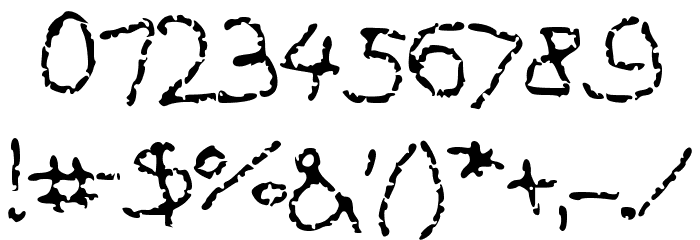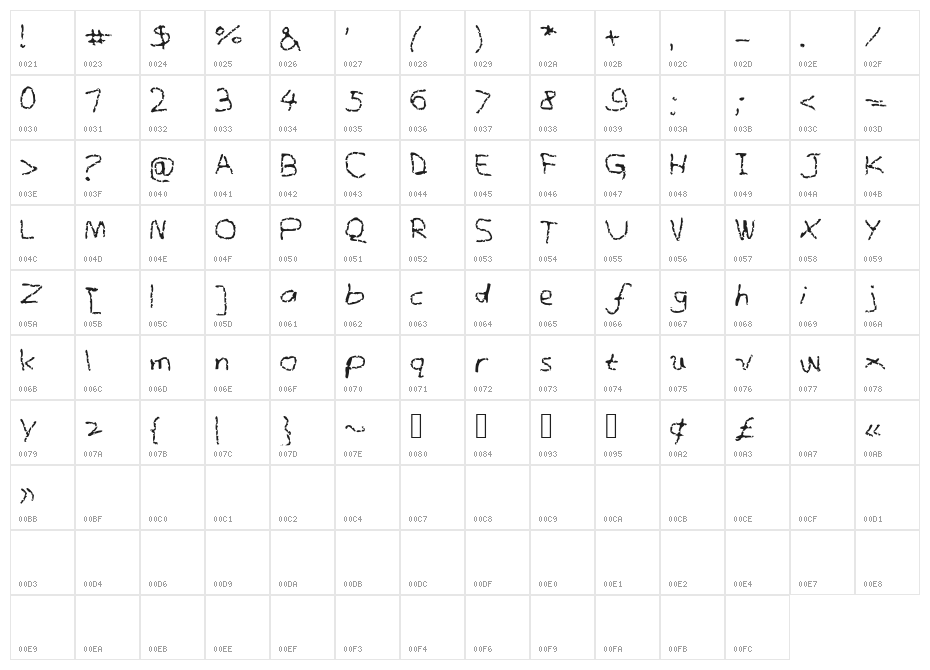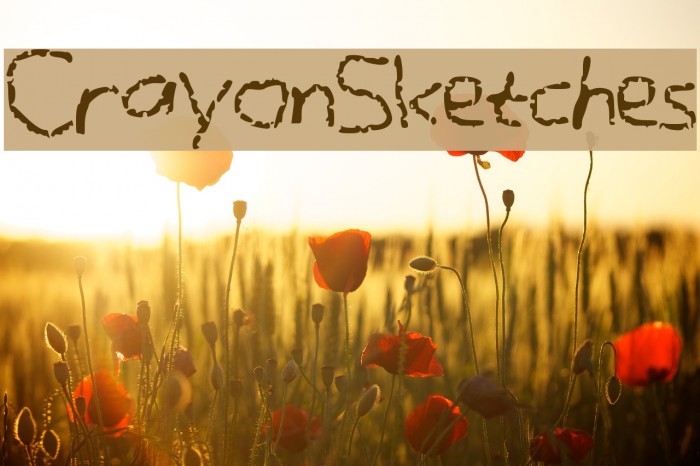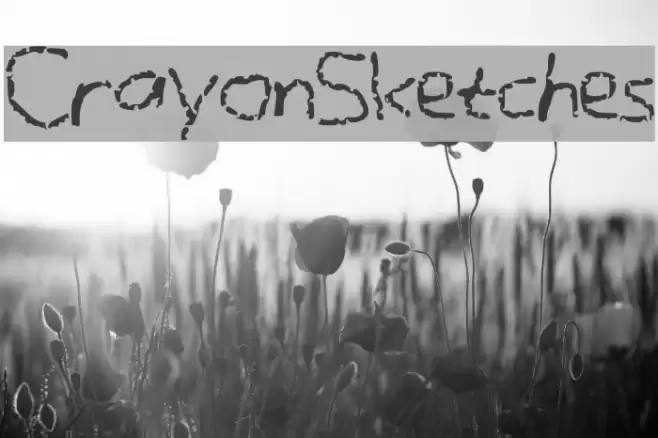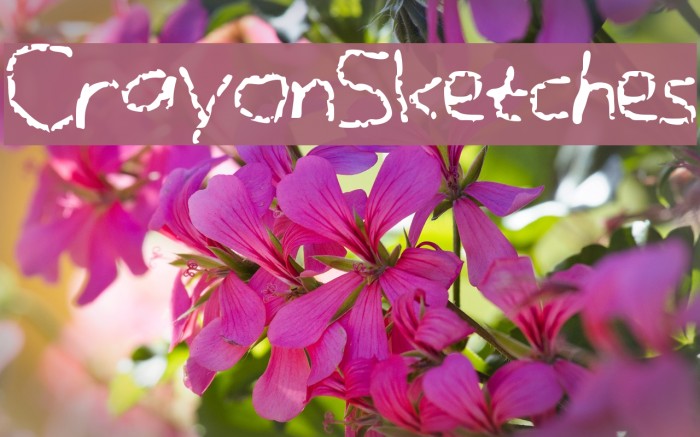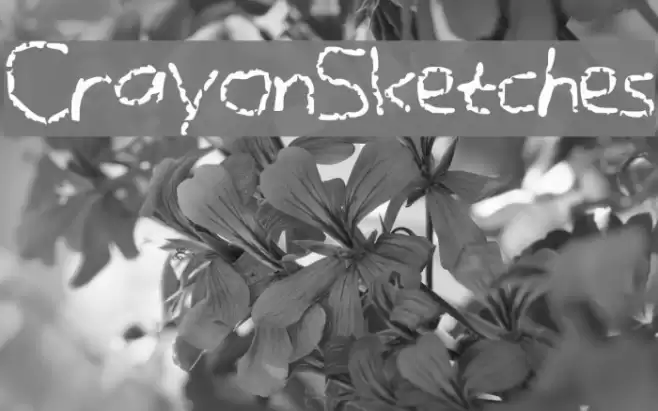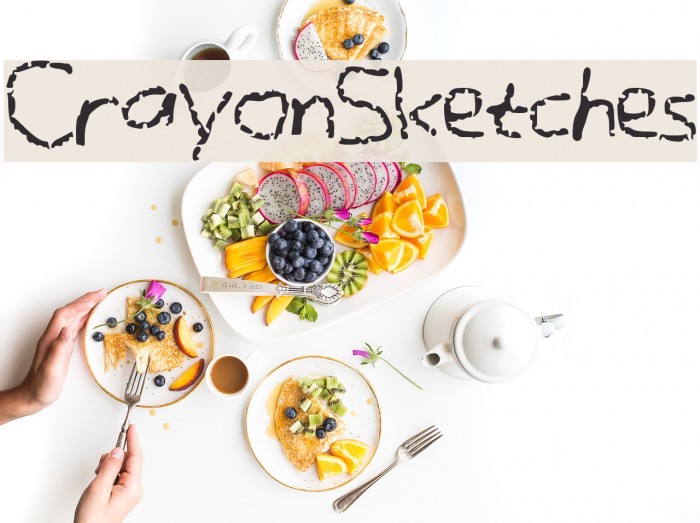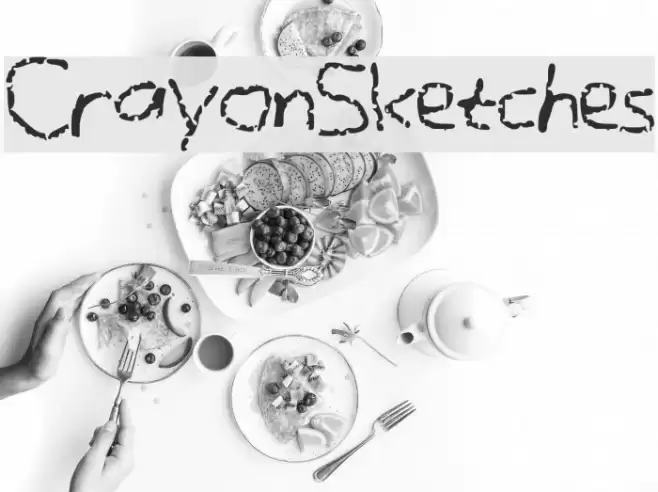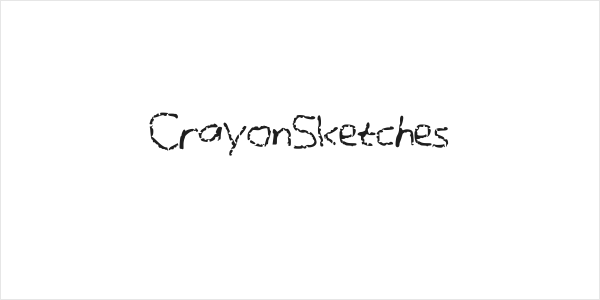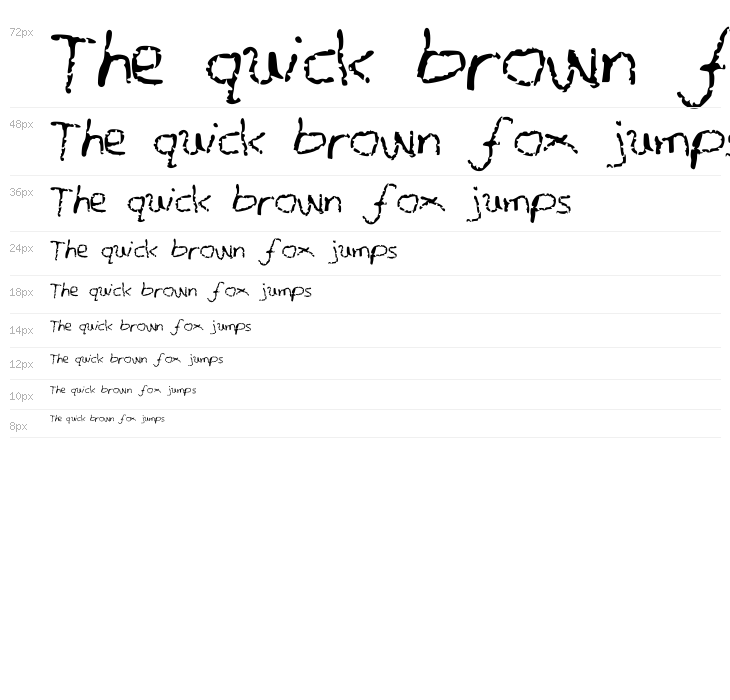
CrayonSketches Font
CrayonSketches Description
This font embodies a playful and artistic style, reminiscent of hand-drawn sketches with a crayon. The characters are irregular and textured, giving a sense of spontaneity and creativity. Each letter and number appears as if it has been carefully crafted with a crayon, featuring uneven edges and a slightly rough texture. This adds a unique charm and character to the font, making it stand out. The overall appearance is informal and whimsical, perfect for projects that require a touch of creativity and individuality. The font maintains legibility despite its artistic flair, making it suitable for various creative applications.
Overall StyleArtistic, Playful
Use CaseHeadlines, Creative projects, Posters
Proposed ProjectsIdeal for children's book covers, art projects, playful branding, and creative posters.